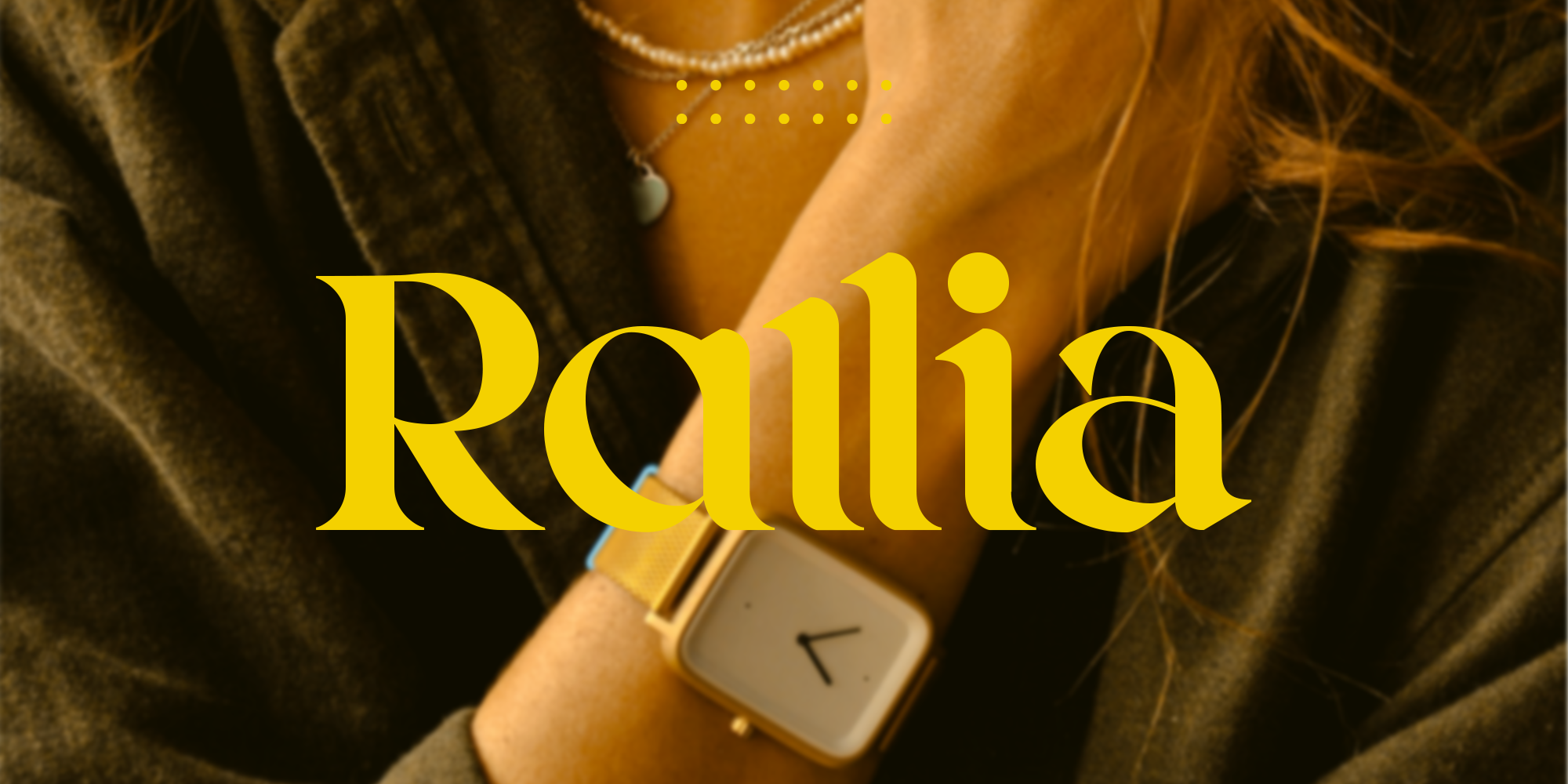
Rallia Font is ideal for elegant design projects including luxury jewelry branding, high-end cosmetics packaging, premium wedding stationery, sophisticated fashion magazines, upscale beauty campaigns, exclusive event invitations, refined art gallery materials, cultured lifestyle brands, prestigious award ceremonies, and distinguished corporate communications that require graceful typography with timeless sophistication and feminine elegance.
What makes Rallia Font so exciting is its perfect harmony of classical beauty with contemporary refinement that creates an atmosphere of luxury and exclusivity while maintaining exceptional legibility across all applications. This exquisite typeface features flowing letterforms, elegant curves, and refined character details that convey grace and sophistication, making it ideal for brands seeking to project premium quality and appeal to audiences who appreciate timeless beauty and refined aesthetics.
Rallia Font typically comes in comprehensive font families including light, regular, medium, bold, and black weights, plus matching italic styles, decorative alternates, elegant swashes, and premium OpenType features, providing designers with extensive tools to create luxurious layouts and establish sophisticated brand hierarchies for upscale applications.
This beautiful Rallia Font Free Download represents the epitome of elegant typography design, offering creative professionals an exceptional foundation for projects requiring feminine grace and luxury appeal. Whether you're developing high-end beauty branding, luxury wedding materials, or sophisticated lifestyle campaigns, this font delivers unmatched elegance while ensuring clear communication and broad market appeal. The graceful design characteristics and versatile weight options make it particularly valuable for luxury brands, beauty companies, and premium services seeking to communicate sophistication, femininity, and refined taste through typography that resonates with discerning audiences and creates lasting impressions in competitive luxury markets.